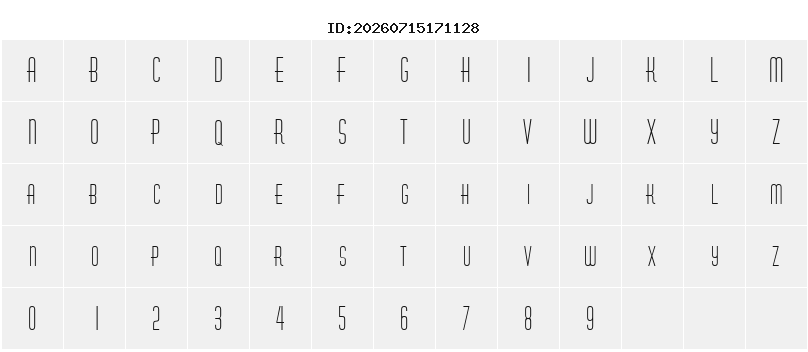
a_HuxleyCaps Preview
• Font Name: a_HuxleyCaps
• Full Font Name: a_HuxleyCaps
About a_HuxleyCaps.ttf
a_HuxleyCaps.ttf is a modern, elegant sans-serif font designed for ultimate readability and visual harmony. Perfect for branding, headlines, web design, and print materials.